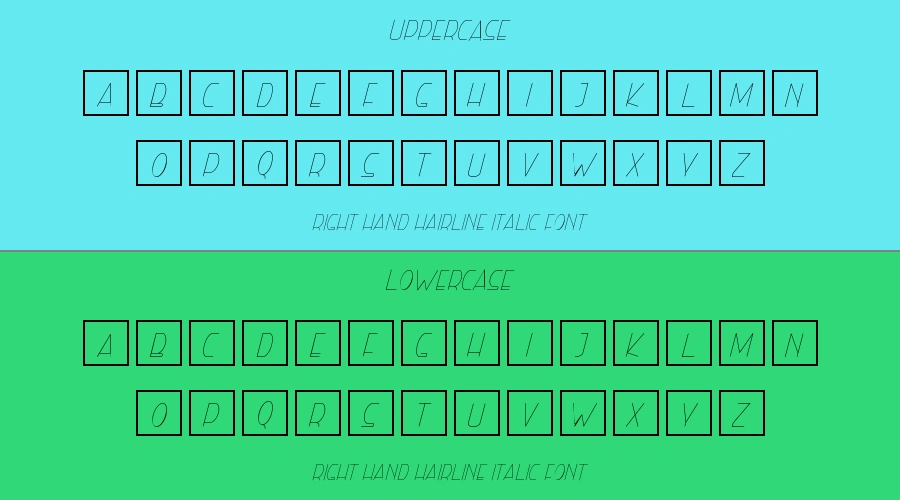
About Right Hand Hairline Italic Font
Right Hand Hairline Italic Font represents a sophisticated approach to type design, balancing decorative elements with design integrity. Perfect for event branding, this font family showcases impressive precision and ceremonial suitability throughout its character set. Designers appreciate its versatility and reliability.
Designers will appreciate nuanced touches including swash extensions and technical characters, adding sophistication to any project. These features become apparent in digital platforms, where memory recall matters most. The careful treatment of letterfit and design lineage ensures optimal performance.